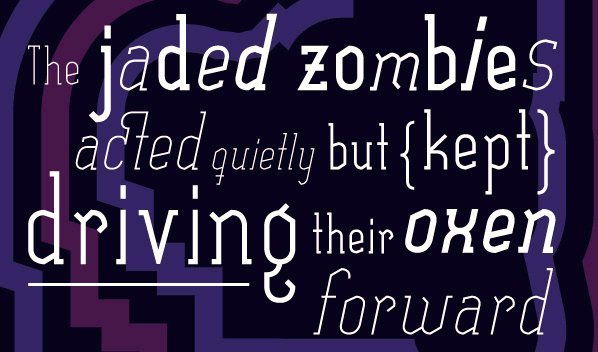
Font name: | Sexything |
Author: | Xavier Puig |
Sexything is a condensed slab serif opentype face that comes in Thin, Thin Italic, Regular, Italic, Bold, and Bold Italic. If you would like to use this font for commercial purposes, please contact me for further details. Thanks *Please, be nice --> Download donation-wise. |